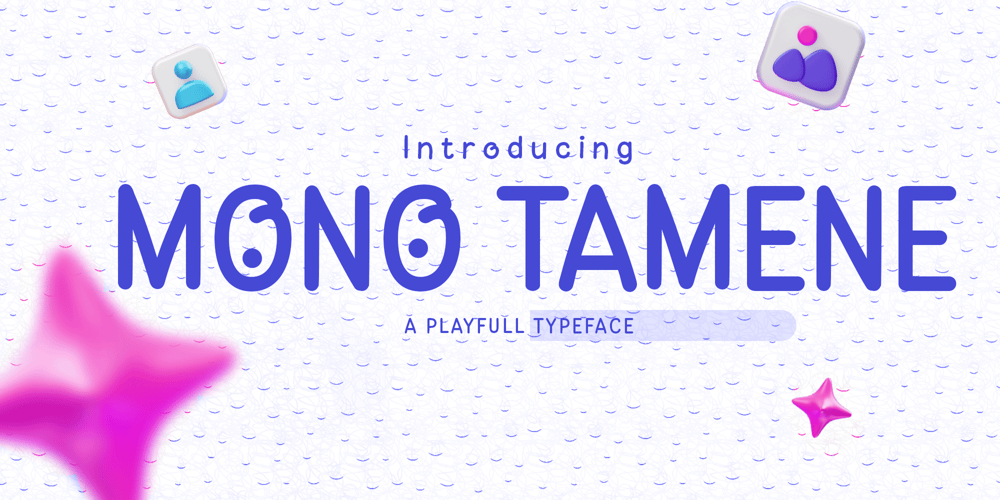
Mono Tamene Font Family was designed by Sidik Sidik and published by Differentialtype. Mono Tamene contains 2 styles and family package options. Mono Tamene is a cute and fun display font. You can use it for crafts, digital designs, presentations, or anything else, this font has a unique and friendly feel